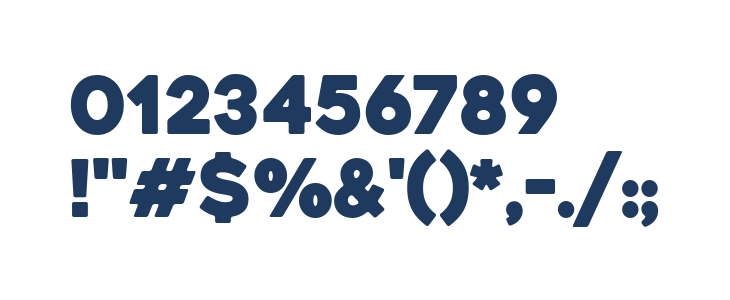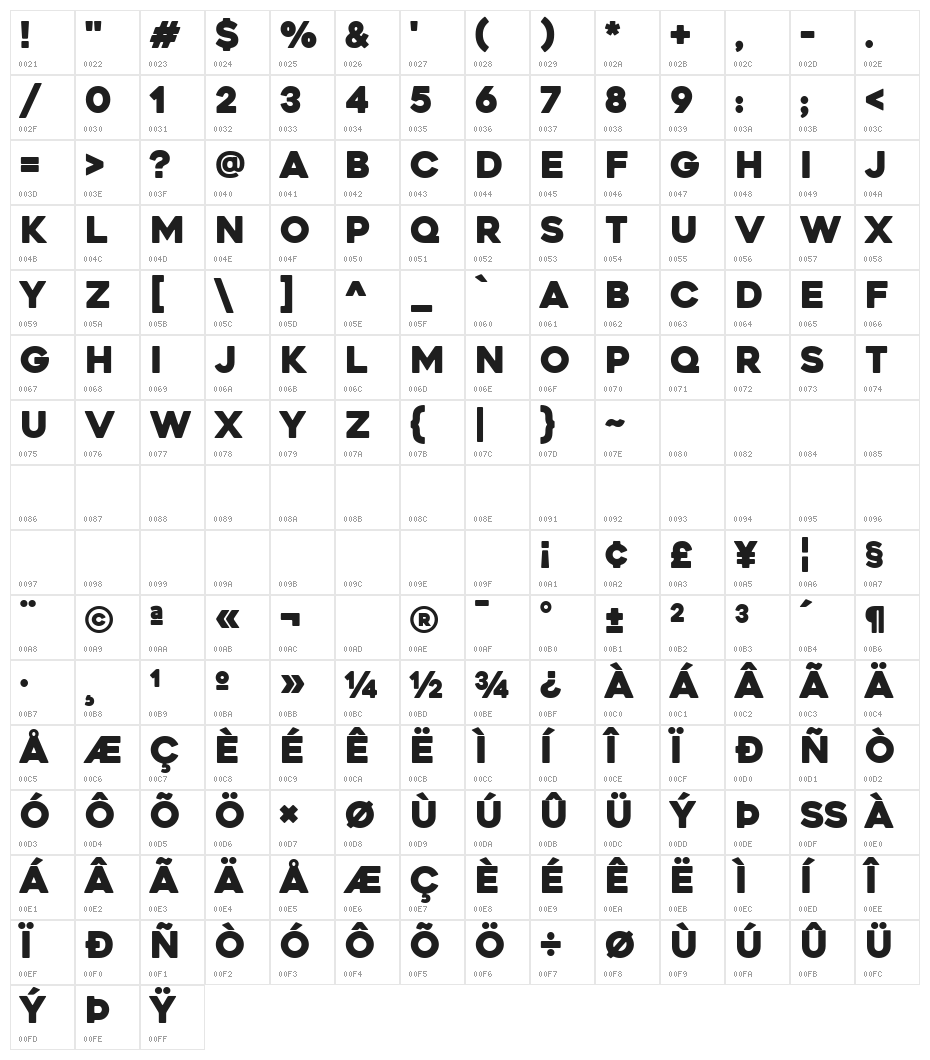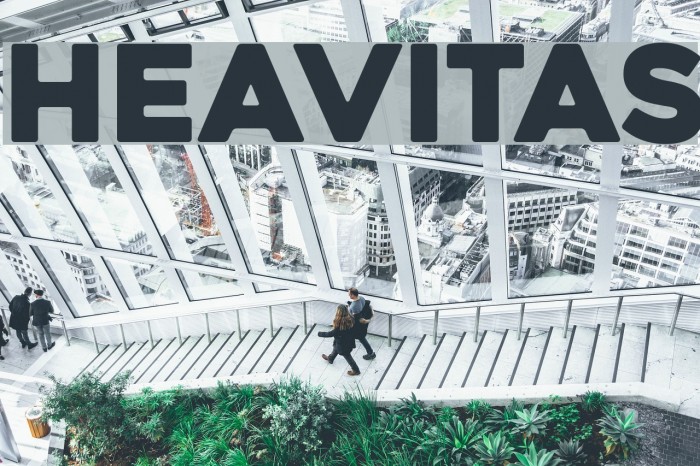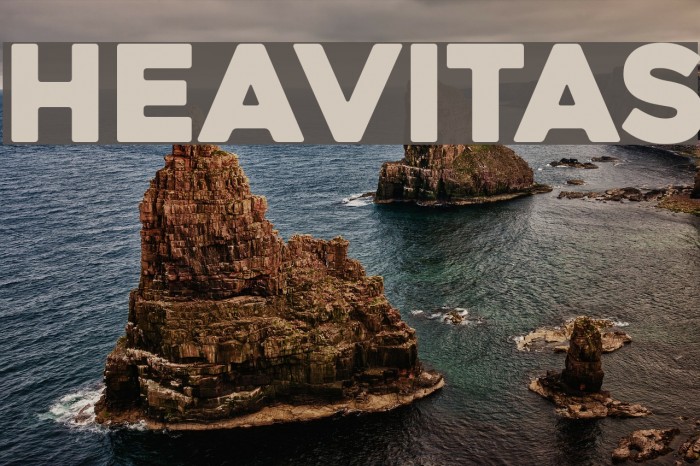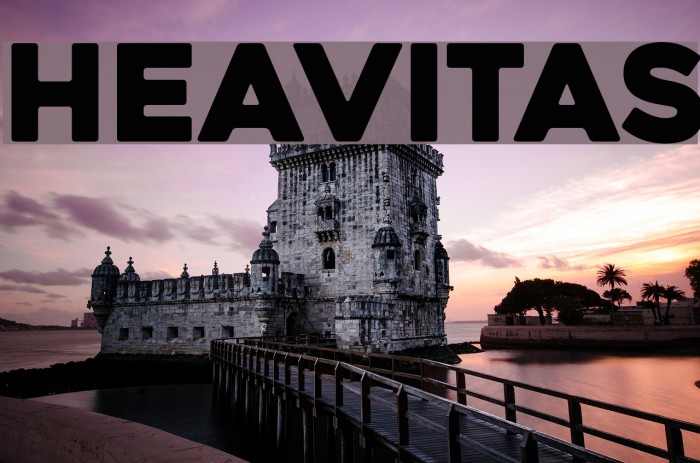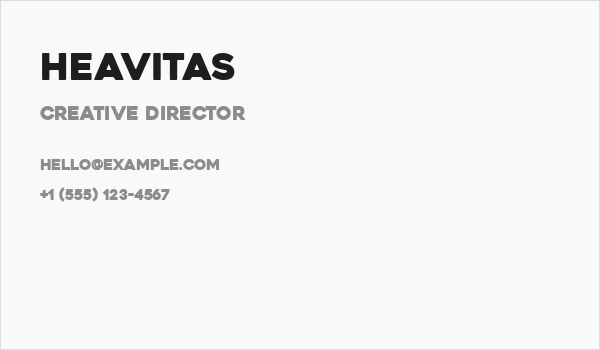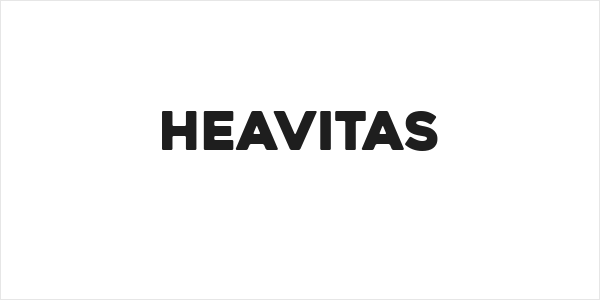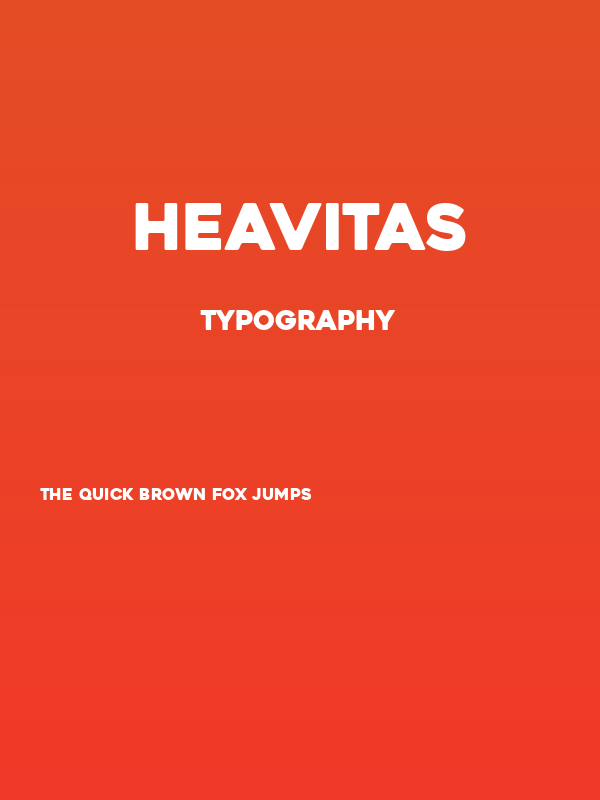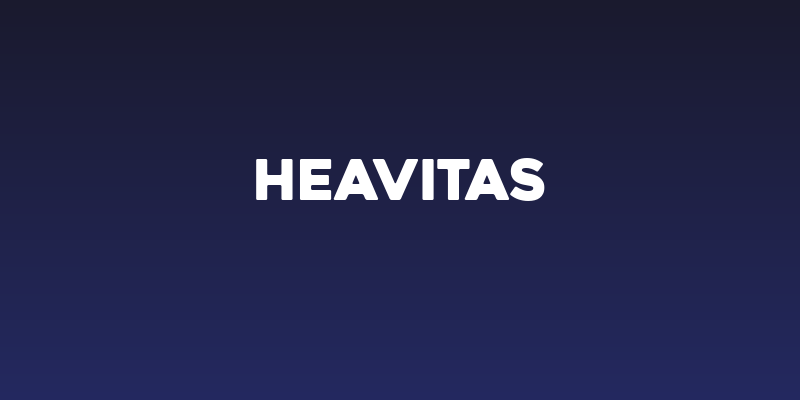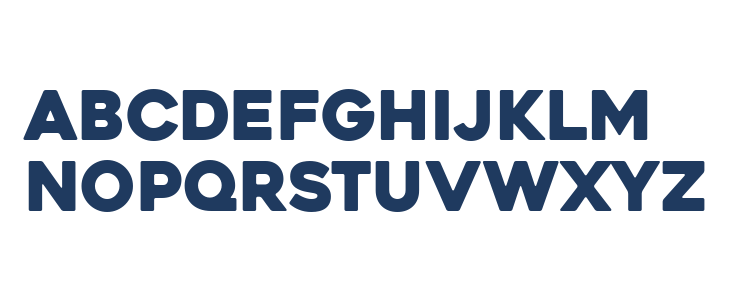
Heavitas Font
Heavitas Description
This font features bold, geometric letterforms with a strong presence, making it ideal for impactful designs. The characters are uniformly thick, with a consistent stroke width that emphasizes clarity and readability. The uppercase and lowercase letters maintain a cohesive style, with rounded edges that soften the overall appearance. The numerals are equally bold, ensuring they stand out in any context. Special characters are designed with the same attention to detail, providing a complete and versatile typeface suitable for various applications.
| Proposed Projects | Ideal for branding, headlines, posters, and advertising where a strong visual impact is desired. |